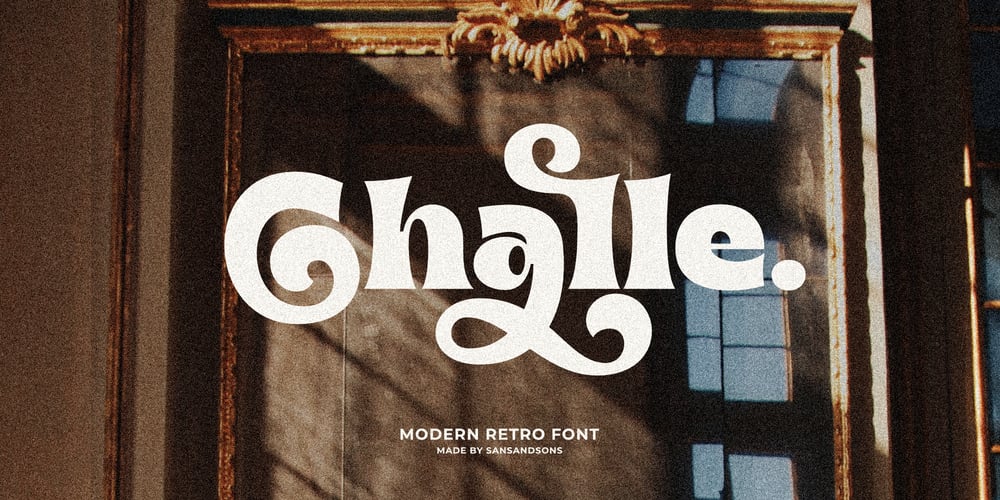
Challe Font Family was designed by Angga Suwista and published by Sans And Sons. Challe contains 1 styles and family package options. “Challe” Retro Font – A Nostalgic Typeface for Creative Projects with Retro Elegant Style this is perfect for branding, logos, invitation, masterheads and more.Challe Retro Font stands as a testament to the timeless appeal of vintage aesthetics. Its enduring style ensures that your designs will remain captivating for years to come.